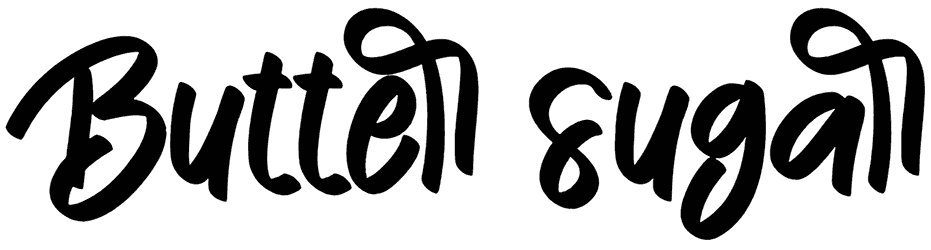
Butter Sugar Font
Butter Sugar, a handwritten font, can rescue your graphic display from monotony and make it appealing to the eye of any viewer. This script font is perfect for any project, whether a poster, a card, or a t-shirt you’re painting.